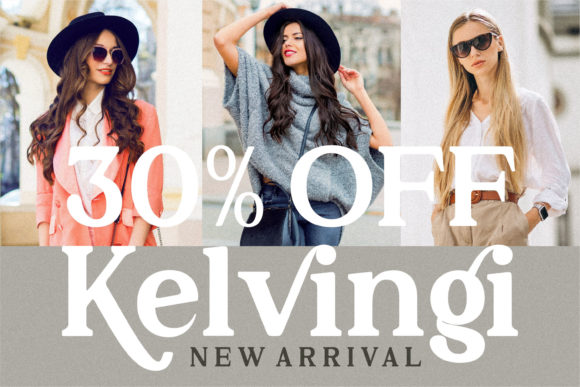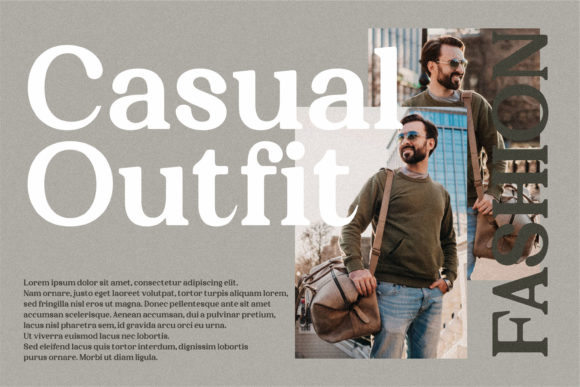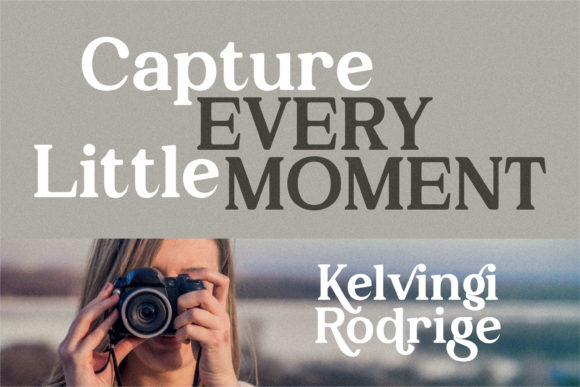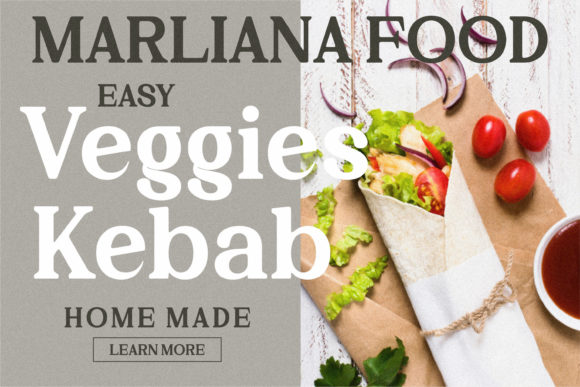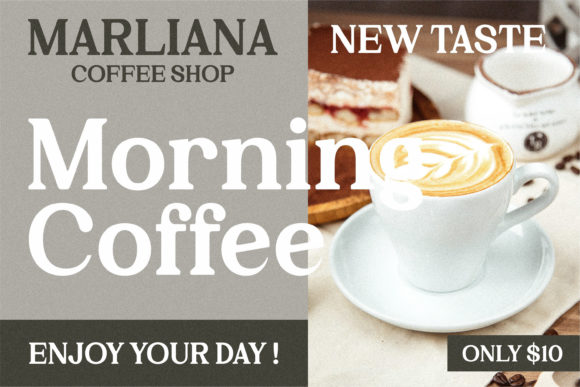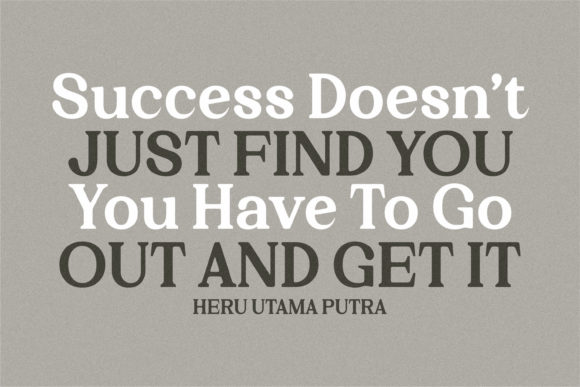
Introduction to Kelvingi Rodrige Font
Have you ever stared at a blank page, trying to bring a creative project to life, but struggling to find the perfect font to set the tone? For designers, finding the right font can make all the difference between a mediocre design and a truly exceptional one. That’s where the Kelvingi Rodrige Font comes in – a stylish and versatile serif font that’s sure to elevate your designs to the next level.
Whether you’re working on a formal business project or a fun, informal design, Kelvingi Rodrige Font is the perfect design resource to add a touch of sophistication and elegance. With its beautiful, refreshing look, this font is a must-have for any designer looking to create high-quality designs that stand out from the crowd.
Key Features of Kelvingi Rodrige Font
- Unique blend of modern and vintage design elements, perfect for creative projects that require a touch of elegance.
Honest Review: Kelvingi Rodrige Font
I recently stumbled upon the Kelvingi Rodrige Font while searching for free downloads to enhance my creative project. This font has been a game-changer for me, and I must say, I’m thoroughly impressed.
- What works well: ✨ The Kelvingi Rodrige Font offers a high-quality, transparent background that makes it easy to incorporate into any design. It’s also incredibly versatile and works well for a variety of creative projects.
- ✨ The font’s unique design elements, such as the bold lines and modern aesthetic, make it stand out from the crowd and add a touch of sophistication to any design.
However, I did encounter a few limitations while using the Kelvingi Rodrige Font. ⚠️ One of the main issues I faced was the lack of customization options. While the font is beautiful on its own, I found it difficult to make adjustments to suit my specific design needs.
Overall, I’m really impressed with the Kelvingi Rodrige Font and would highly recommend it to anyone looking for a high-quality design resource. Its unique design and transparent background make it a valuable addition to any design collection.
To get the most out of Kelvingi Rodrige Font, use it with a transparent background to give your design a clean and modern look. Experiment with different font sizes and styles to create a visually appealing design.
Kelvingi Rodrige Font is commonly used in creative projects such as logo designs, social media graphics, and presentation slides. Its high quality and versatility make it a popular choice among designers.